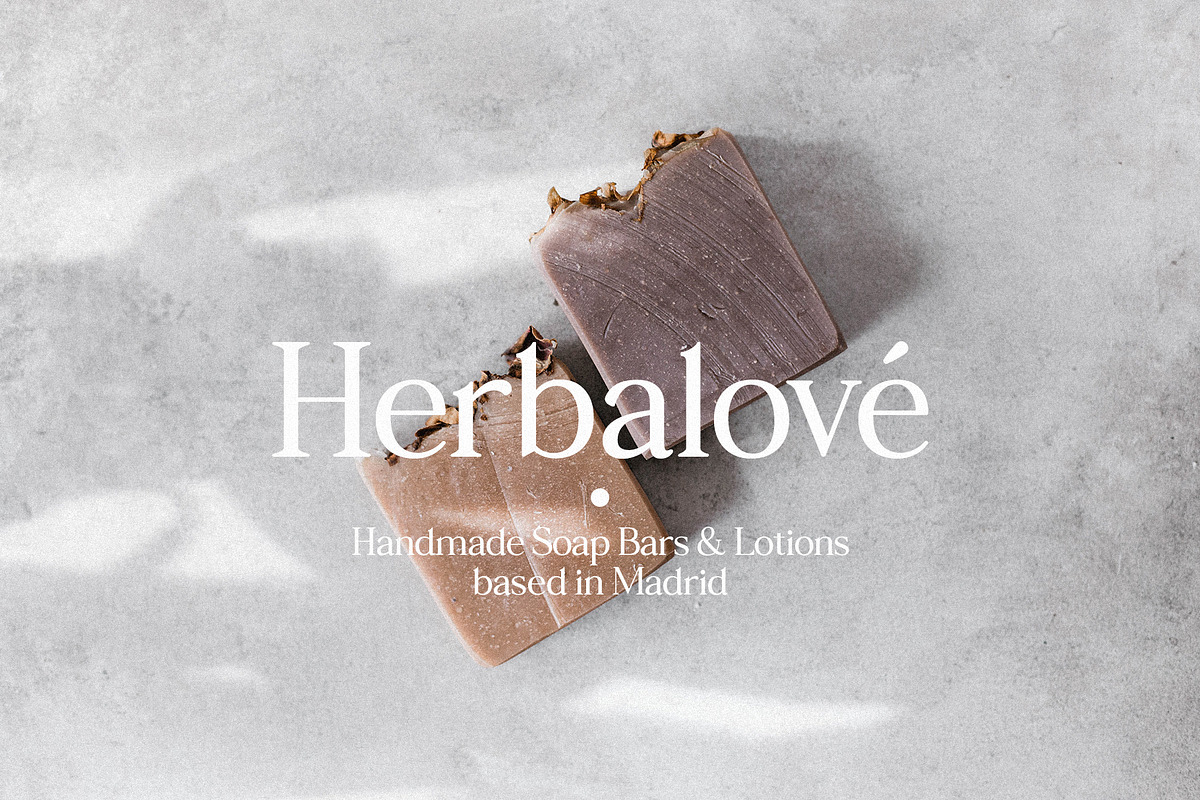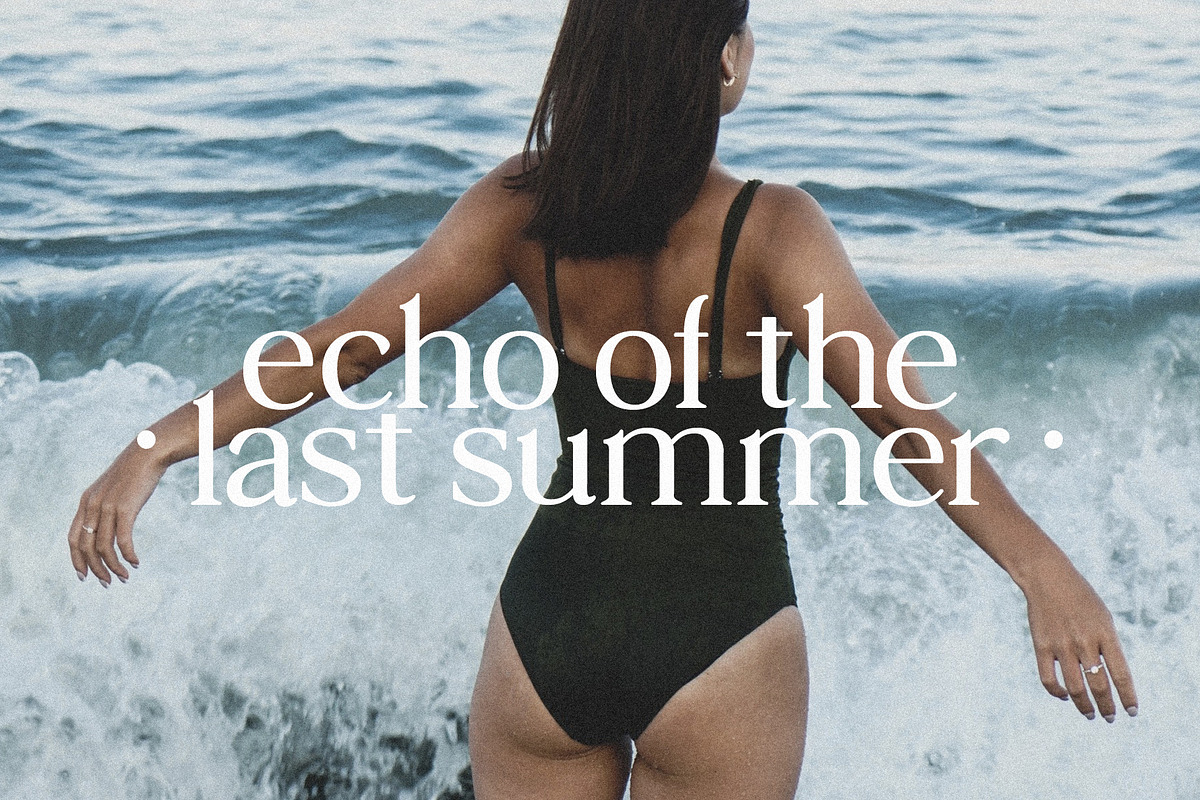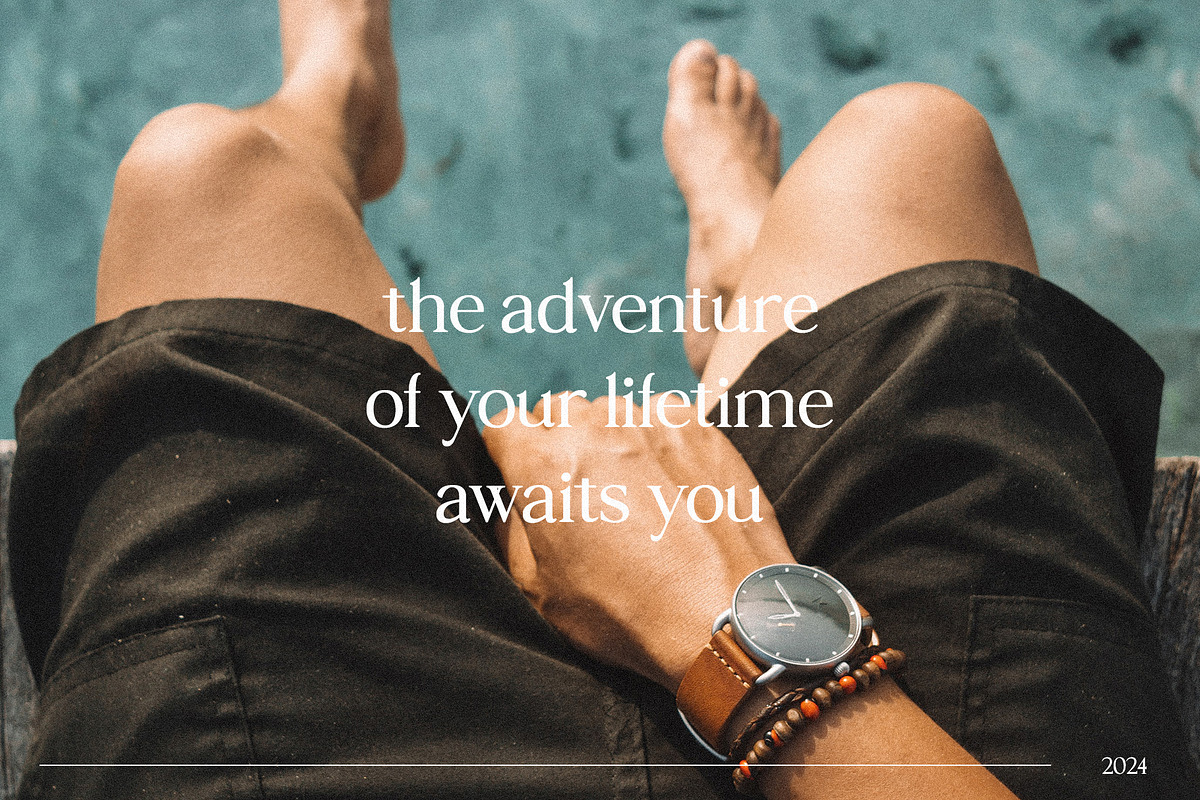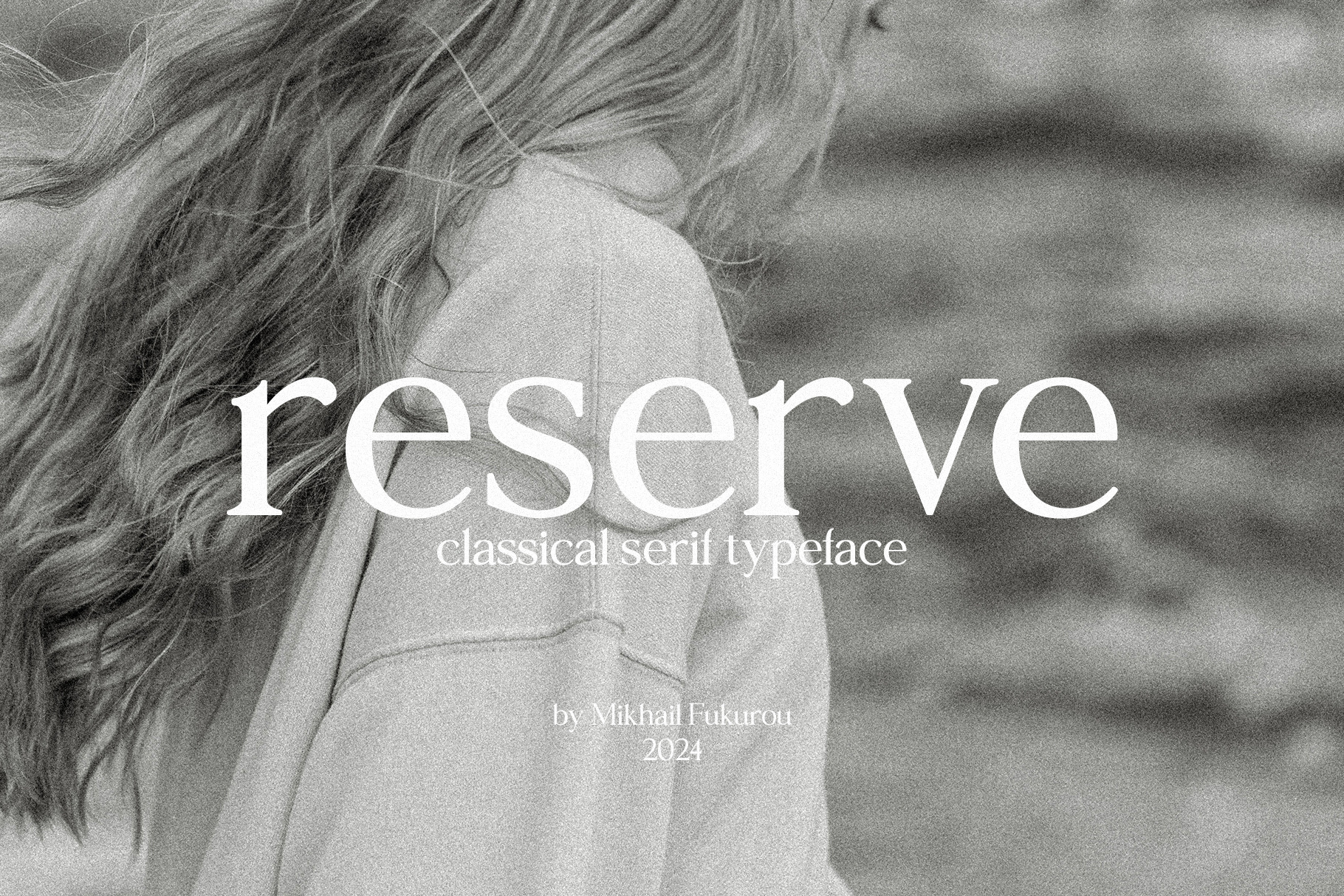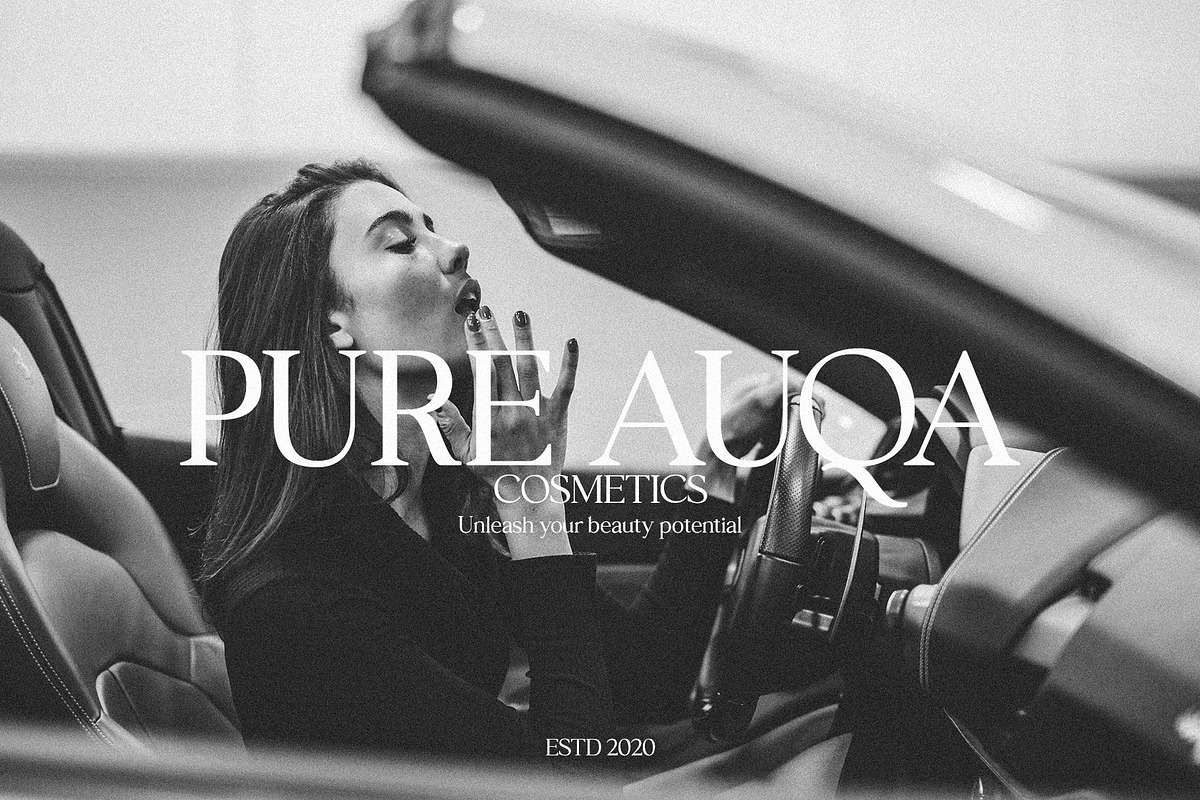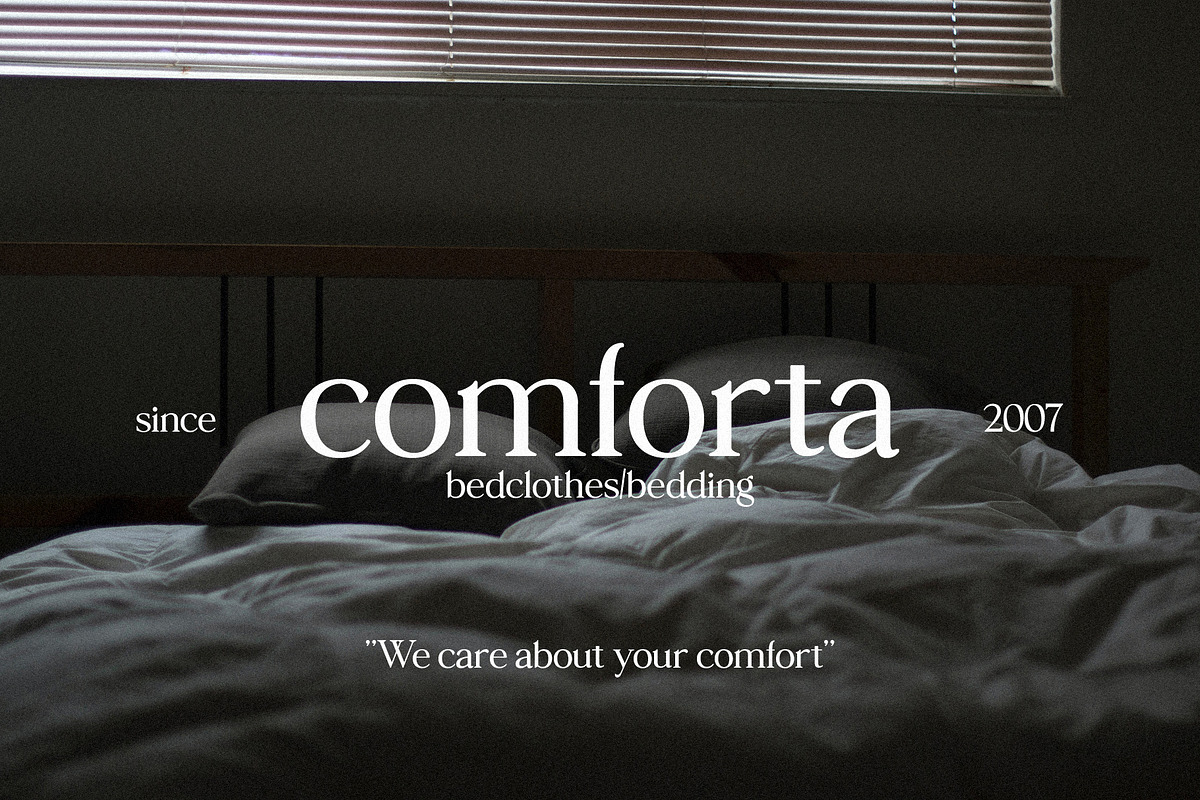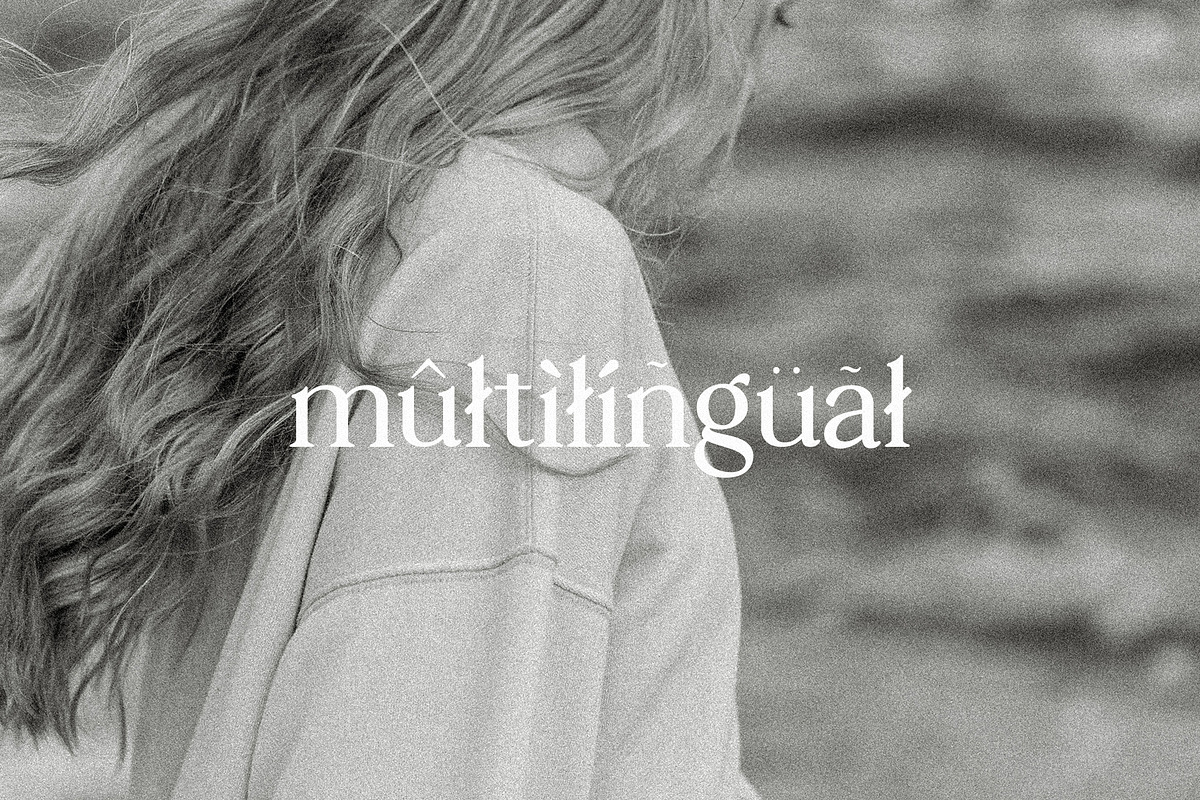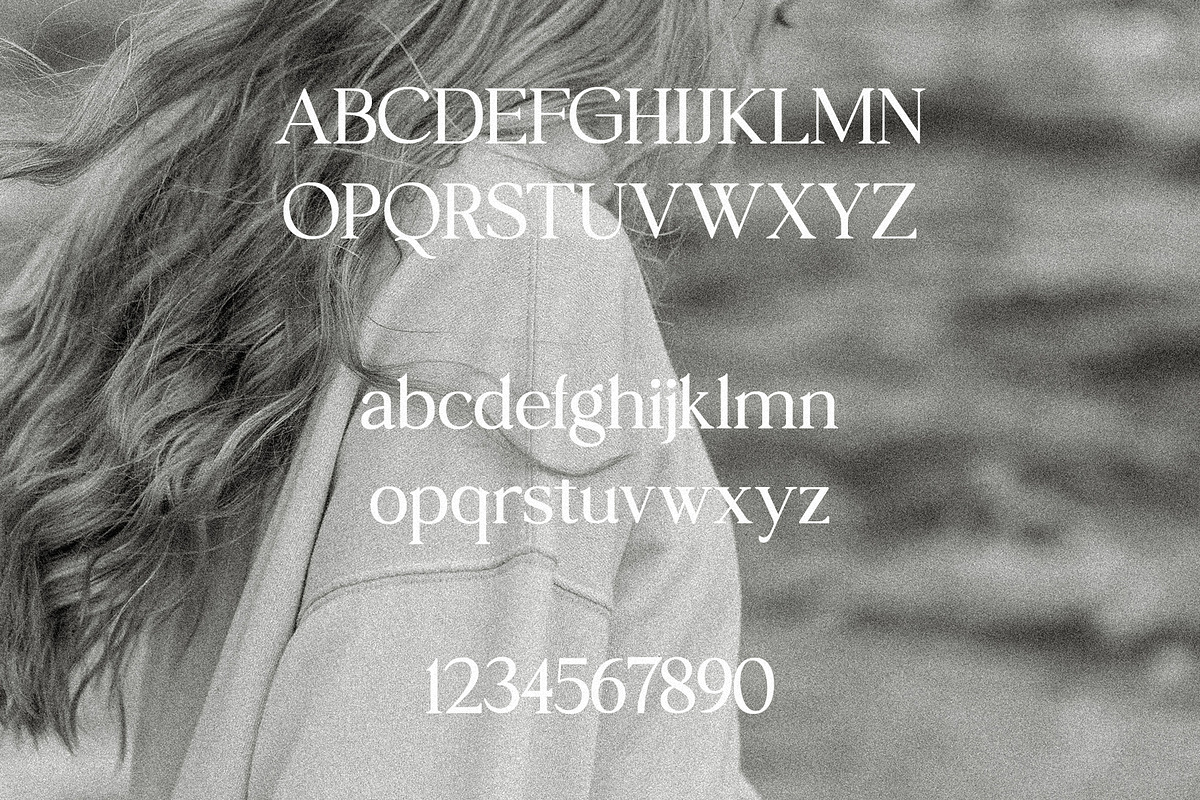
reserve - classical serif typeface
Reserve is a classic serif font that looks sophisticated and elegant. It features delicate and curved serifs at the ends of the letters, giving it a unique and sophisticated look. The reserve is ideal for creating luxurious and stylish designs.
The reserve has excellent readability and a harmonious balance between subtlety and reliability. Its sophisticated shapes make it an ideal choice for use in presentations, invitations, business cards, promotional materials and other projects where you want to add a touch of luxury and sophistication.
reserve features:
- Letters
- More than 250+ glyphs